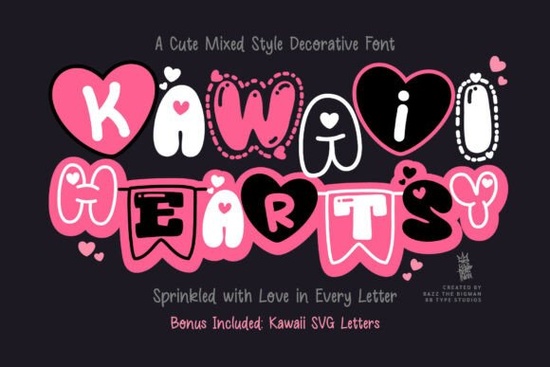
The Kawaii Heartsy font is a mixed-style decorative display typeface that blends six different letter styles into one playful, heart-filled design. If you work on Valentine's Day projects, sticker designs, Cricut crafts, or sublimation, this font brings a sweet, hand-drawn kawaii feel that's genuinely useful. It also comes with pastel SVG letter add-ons, which give you more creative flexibility right out of the box. Here's what makes it worth a closer look and how you can put it to work in your next project.
What makes Kawaii Heartsy different from other decorative fonts?
Most decorative fonts stick to one style throughout. Kawaii Heartsy takes a different approach it combines six distinct letter styles into a single typeface. Each character is designed with hearts and that signature kawaii charm, but the variety keeps text looking dynamic rather than repetitive.
The pastel SVG add-ons are a nice bonus too. You can layer them into your designs for extra dimension, which is especially handy for sticker sheets and planner decorations where visual detail matters.
If you tend to work with whimsical, cute aesthetics, this font fits naturally into that space. It's not trying to be elegant or minimal it's openly playful, and that's exactly where it works best.
What can you actually make with this kawaii display font?
This is where Kawaii Heartsy shines. It's built for hands-on crafting and small business product design. Here are some real uses:
- Valentine's Day cards and gifts the heart motifs do half the work for you
- Sticker design perfect for planner stickers, laptop stickers, and sticker sheets sold on Etsy
- Cricut and cutting machine projects use it for vinyl decals, iron-on transfers, and paper crafts
- Sublimation printing works well on mugs, tote bags, and t-shirts
- Kids' party invitations the playful style is an easy match for birthday themes
- Social media graphics adds personality to Instagram posts, story templates, and Pinterest pins
For print-on-demand sellers, a font like this can help you create seasonal product lines quickly. Valentine's Day alone is a massive market for cute, heart-themed designs, and having a ready-to-use font saves serious production time.
Does it work well for both digital and print projects?
Yes. The font is designed to hold up across different formats. On screen, the decorative details read clearly for social media and web graphics. In print, the character shapes stay clean enough for sublimation, heat transfer, and standard paper printing.
That said, like any decorative display font, it's not meant for body text or long paragraphs. Use it for headlines, short phrases, single words, and monogram-style layouts where the personality of the lettering can actually show through.
The included SVG add-ons are particularly useful for digital work you can resize them without losing quality, which matters when you're designing across different platforms and product dimensions.
How does it compare to other fonts in the same style range?
Kawaii Heartsy sits in the decorative and whimsical category, but it's more playful than fonts like a floral script style or a bold geometric typeface. If you're building a font collection for varied projects, it pairs well with cleaner options.
For monogram-specific work, dedicated fonts like those designed for monogram crafting or wedding monogram designs might serve better. But for cute, kid-friendly, and seasonal designs, this heart-themed typeface fills a niche that most other fonts don't.
If you're looking for other playful or decorative options to round out your toolkit, Beauty Lilly offers a different decorative vibe that complements Kawaii Heartsy nicely in a font library.
- Check your use case this font is best for short, decorative text, not paragraphs
- Test the SVG add-ons they're included, so take advantage of them in your designs
- Pair it wisely combine with a simple sans-serif for body copy if you're making cards or invitations
- Plan seasonal content Valentine's Day, birthdays, and kids' projects are where this font really earns its keep